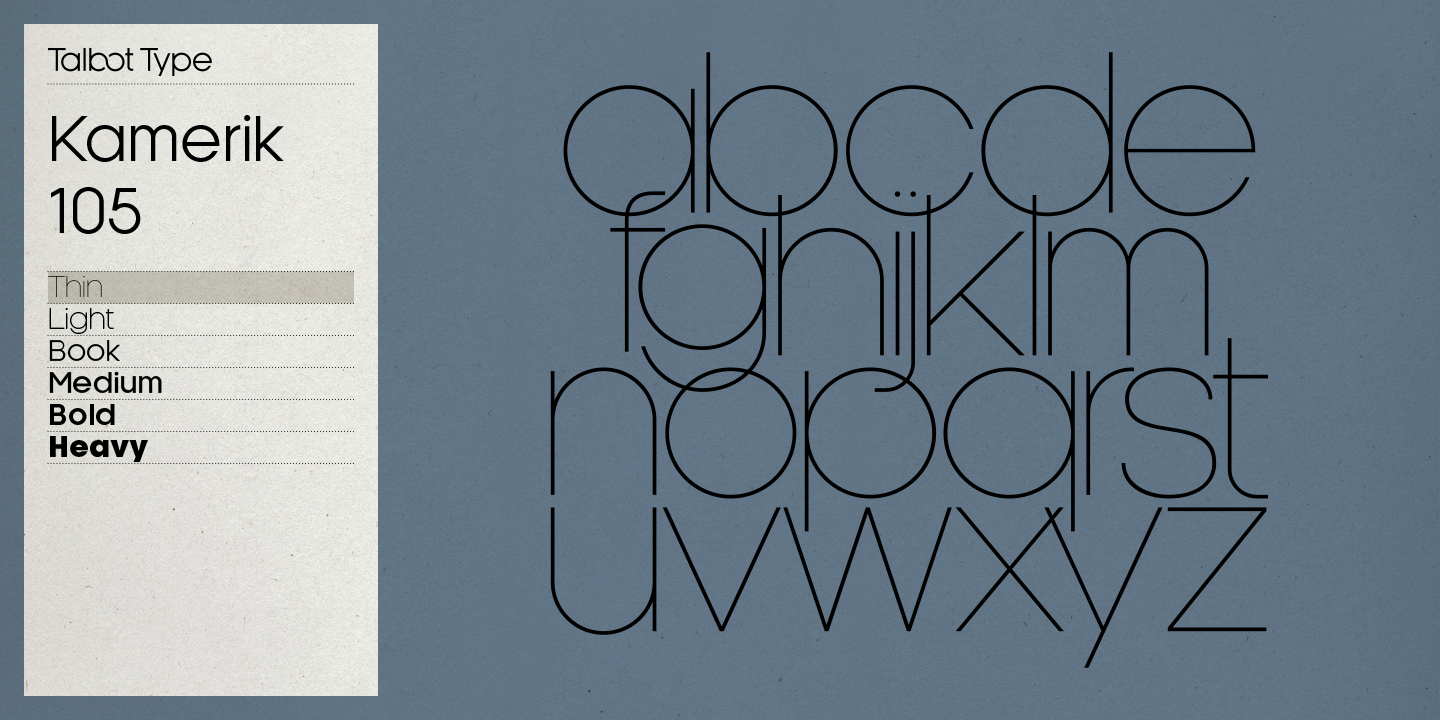
Kamerik 105 Font Free Download is a clean, geometric sans-serif typeface that blends modern simplicity with timeless style. Perfect for branding, logos, editorial design, websites, packaging, and corporate materials, this font offers balanced proportions and sleek letterforms that ensure clarity and professionalism across both print and digital platforms. Kamerik 105 Font brings a minimalist, sophisticated touch to any design project.
With Kamerik 105 Font Free Download, you’ll receive a complete set of uppercase, lowercase, numbers, and essential punctuation, offering flexibility for headlines, body text, and everything in between. Whether you're creating business cards, product packaging, social media graphics, or marketing materials, this font ensures excellent readability while adding a refined, contemporary aesthetic.